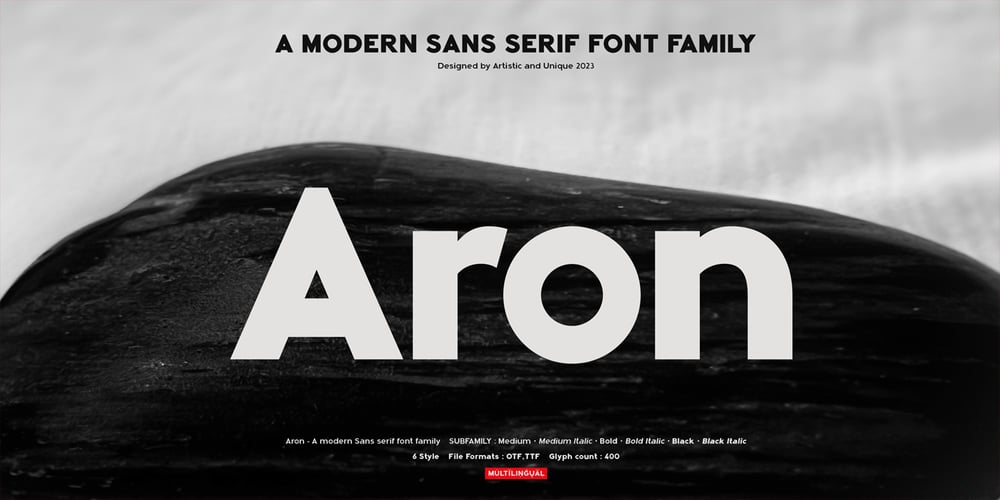
Aron
Aron font
Aron Font Family was designed by Osman Taner Kucukgenc and published by Artisticandunique. Aron contains 6 styles and family package options. Aron – Sans Serif Font Family – Multilingual supports – 6 StyleAron Sans serif font family, with is geometric structure and 6 styles, helps you create many alternatives in your creative projects. It is also assertive about being a highly readable font with different weights in creating striking and powerful titles.Ideal for books and magazines, editorials, headlines, websites, logos, branding, advertising and more.If you have a question, please contact me.Have a good time.